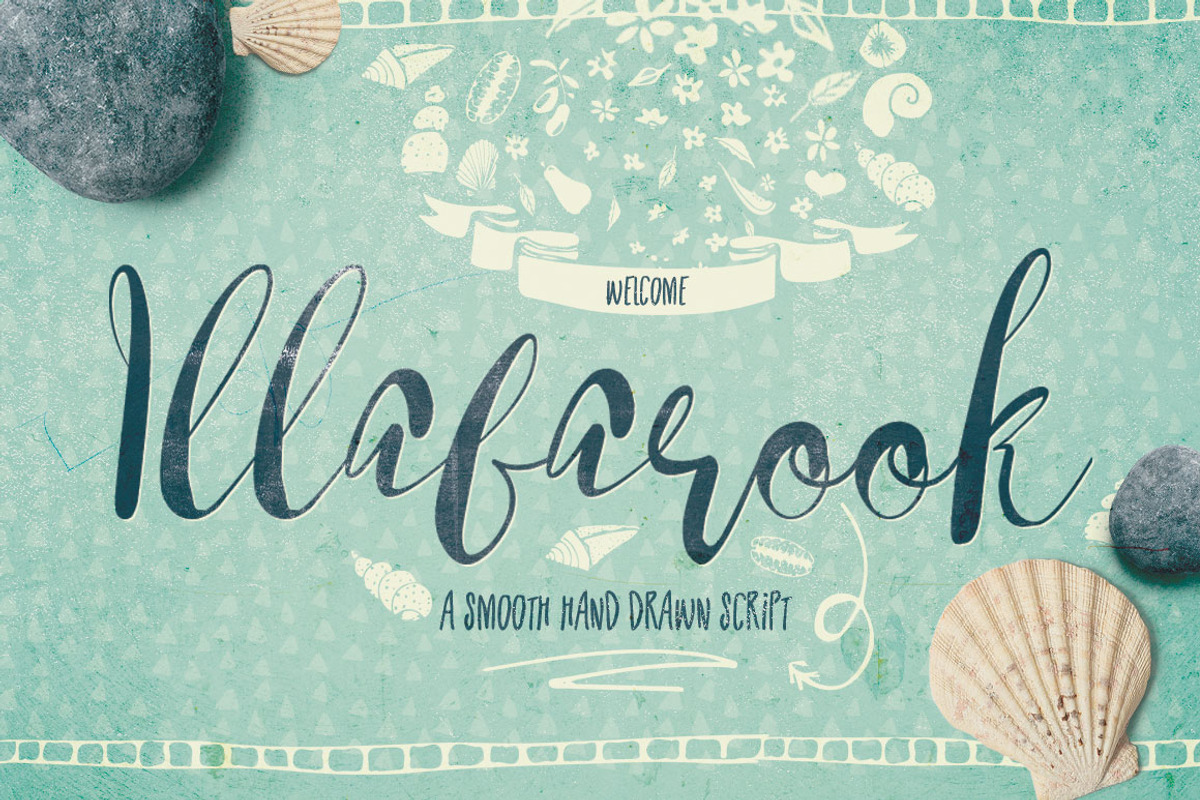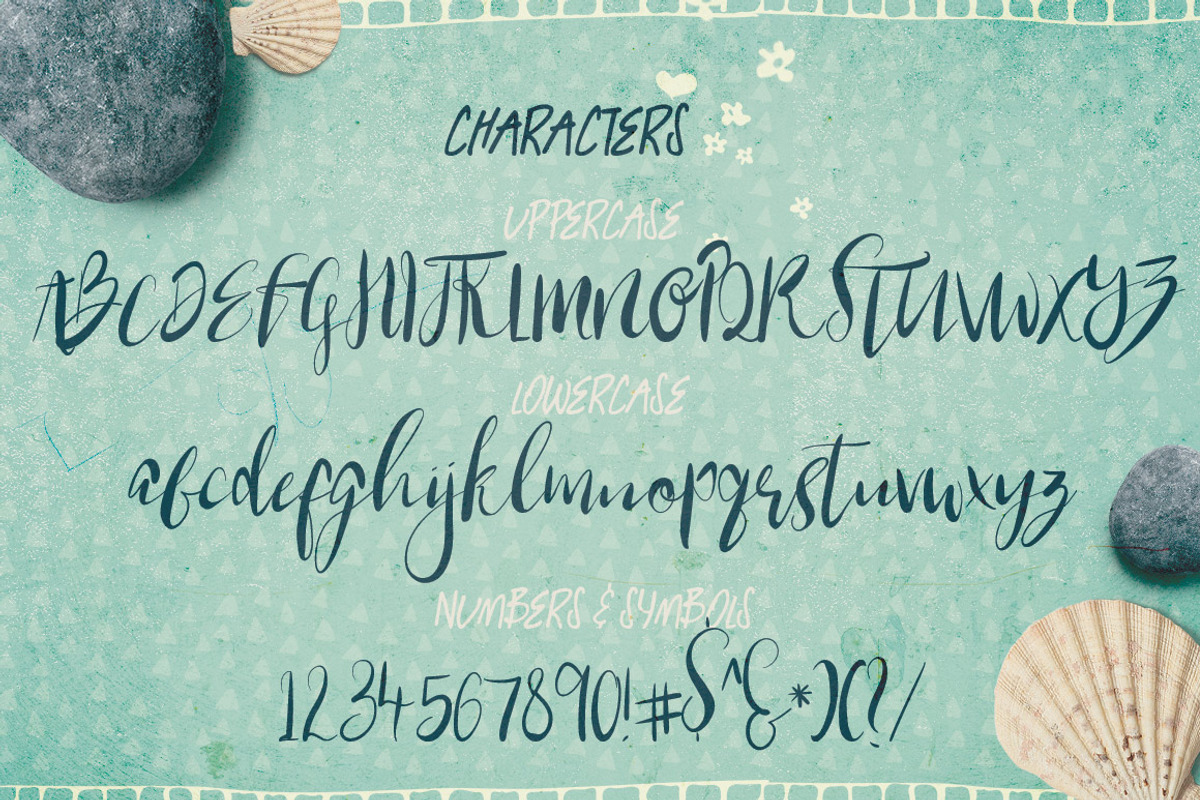
Illabarook Script Font Typeface
Illabarook Script Font Typeface by Creativeqube Design is a font selected for branding, posters, packaging, typography.
Why Illabarook Script Font Typeface is worth a look
Illabarook Script Font Typeface by Creativeqube Design fits naturally into Branding, posters, packaging, typography.